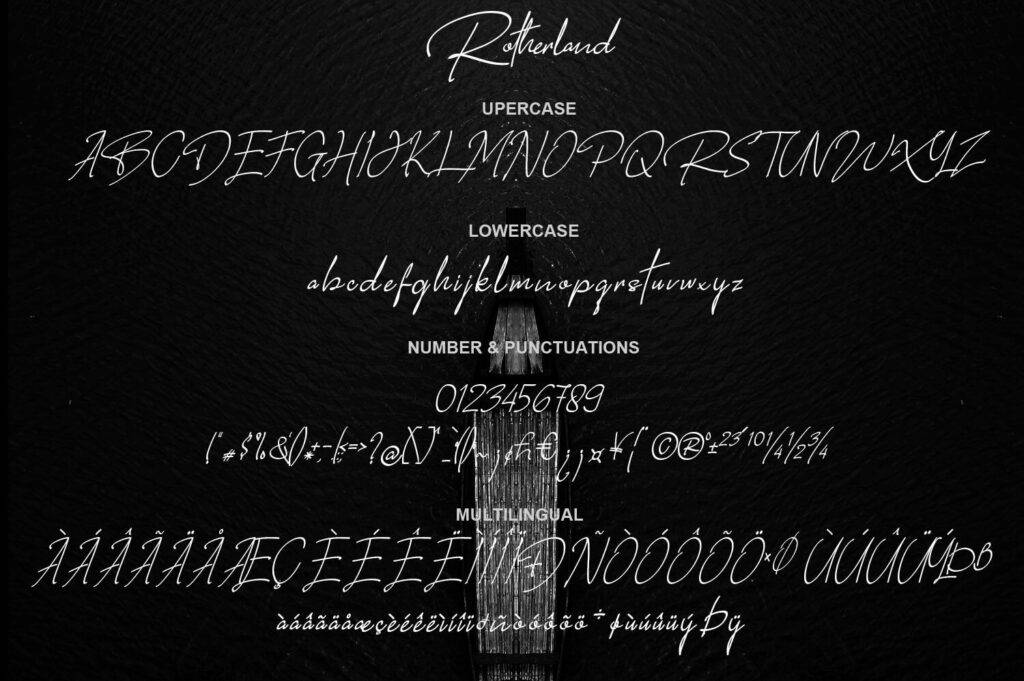
Rotherland Font
Good day, guys! This is a unique script and handwritten font with a luxurious feel to it. It has a traditional feel to it and a natural writing style. It is a trademark typeface that’ll look great in any design or print job. The Rotherland is a deluxe signature script that is handwritten and has a natural and clean flow on each line. The font is designed and shared by Marchtwentype studio.
With its smoothness and eager parts, this typeface is akin to an astronaut signature, also regarded as one of them. This script and handwritten font feature unique programmed ligatures that extensively use open kind substitutions. It is a great choice to change the content of each letter in a lettering work of art. It must have a total of 78 characters if it uses TrueType file types. It’s the most important factor to consider when selecting appropriate font pairings for a planner. Additionally, using this typeface for design purposes is a good idea.
It is perfect for any project because it includes ligatures and simple swashes. It may be used for logos, photography watermarks, signatures, quotes, album covers, business cards, apparel, magazines, posters, and so much more!